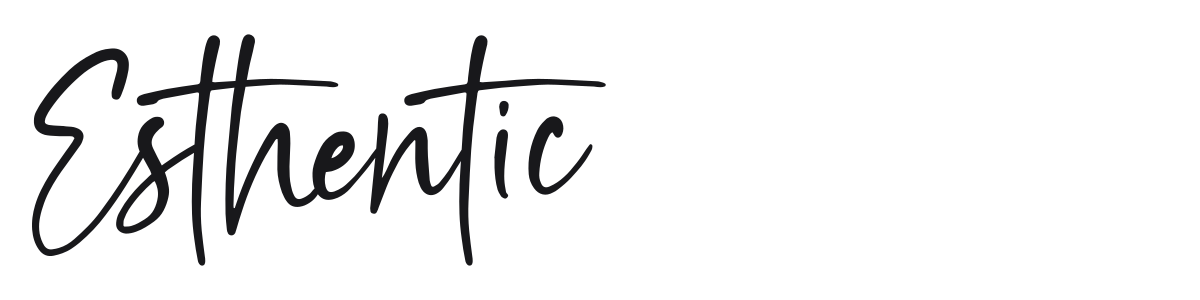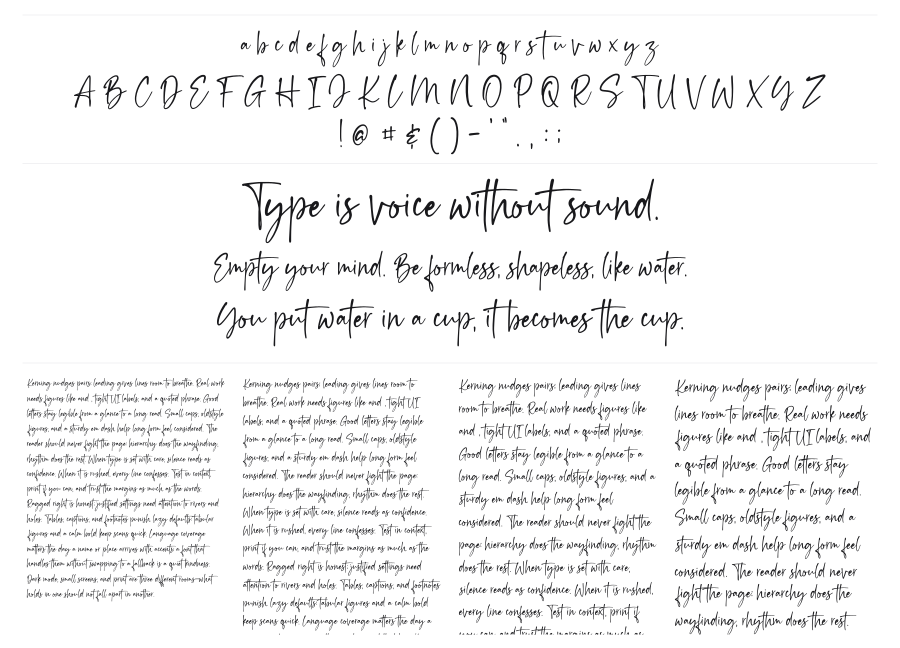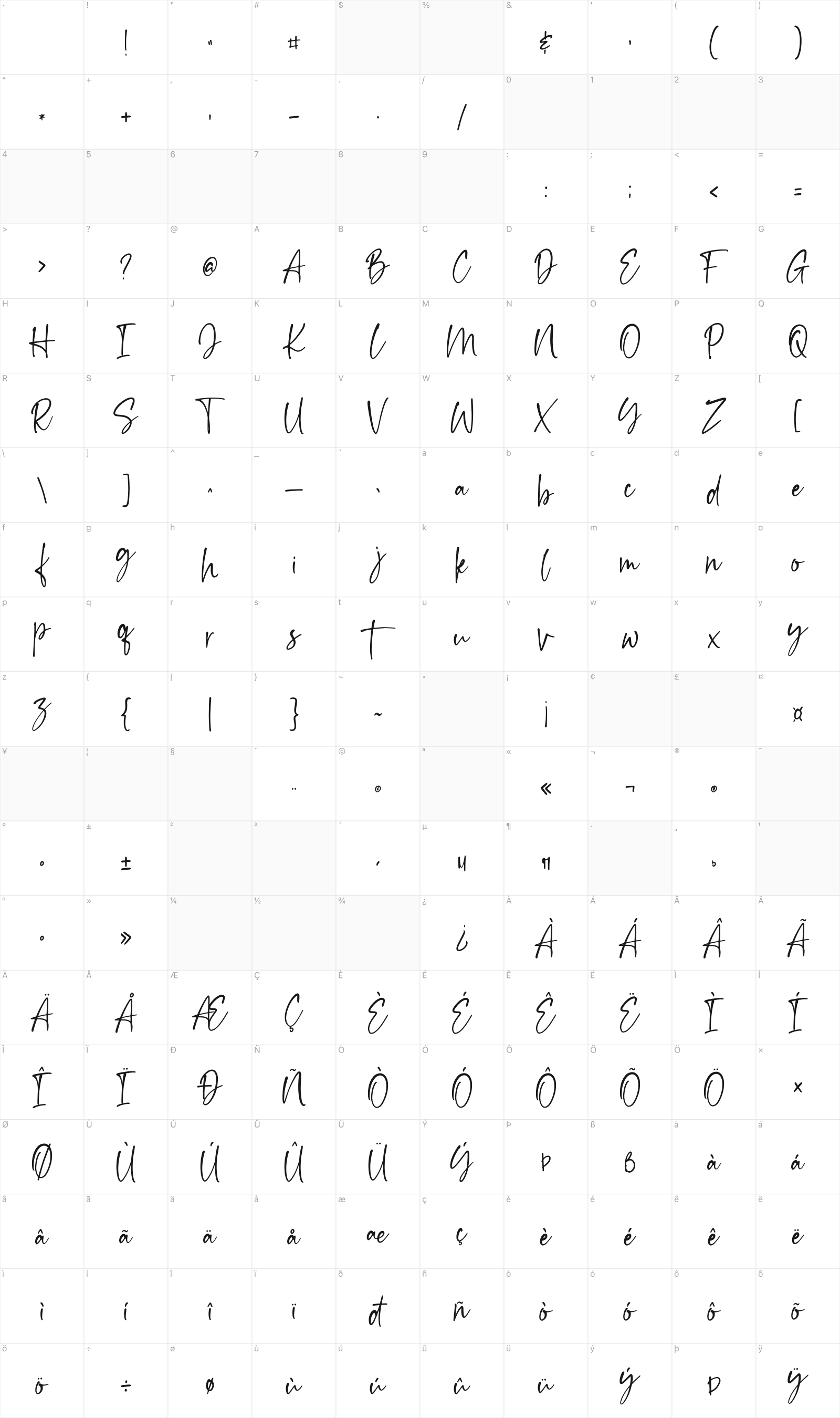
Esthentic
Esthentic is a handwritten script from Vilogsign with flowing connected strokes and a naturally loose baseline. The design balances casual spontaneity with a refined elegance, making it feel like genuine handwriting rather than a stiff calligraphic imitation. It suits branding, packaging, and editorial contexts where warmth and personality matter.